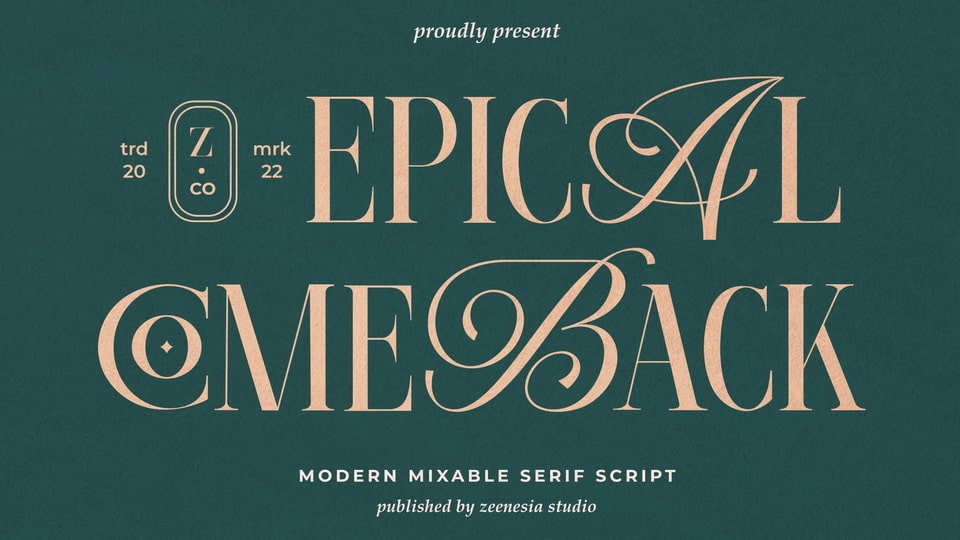
Download Epical Comeback font, a modern display typeface combining serif and script glyphs. Its elegant and refined style is perfect for adding a festive and classy touch to any project.
Designer: Zeenesia Studio